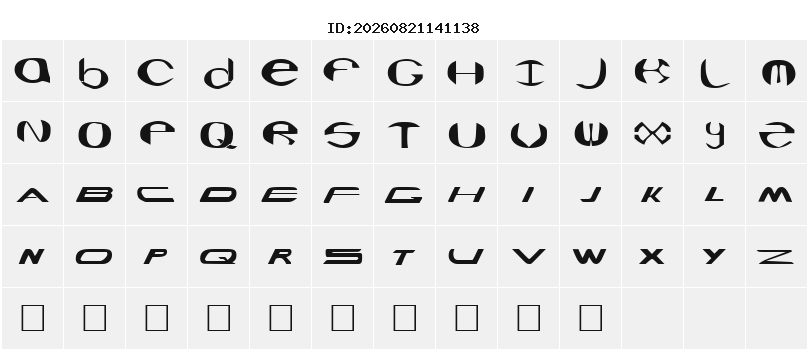
Seaquest Preview
• Font Name: Seaquest
• Full Font Name: Seaquest
About Seaquest.ttf
Seaquest.ttf is a modern, elegant sans-serif font designed for ultimate readability and visual harmony. Perfect for branding, headlines, web design, and print materials.